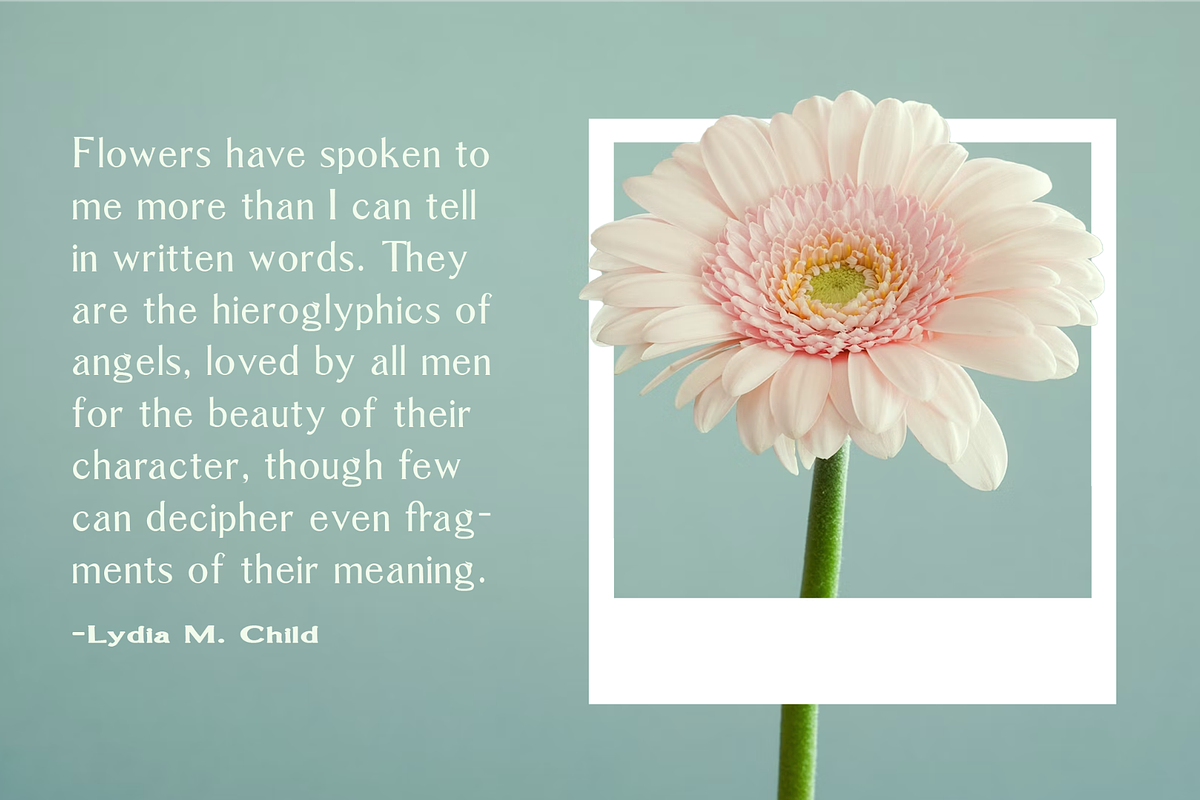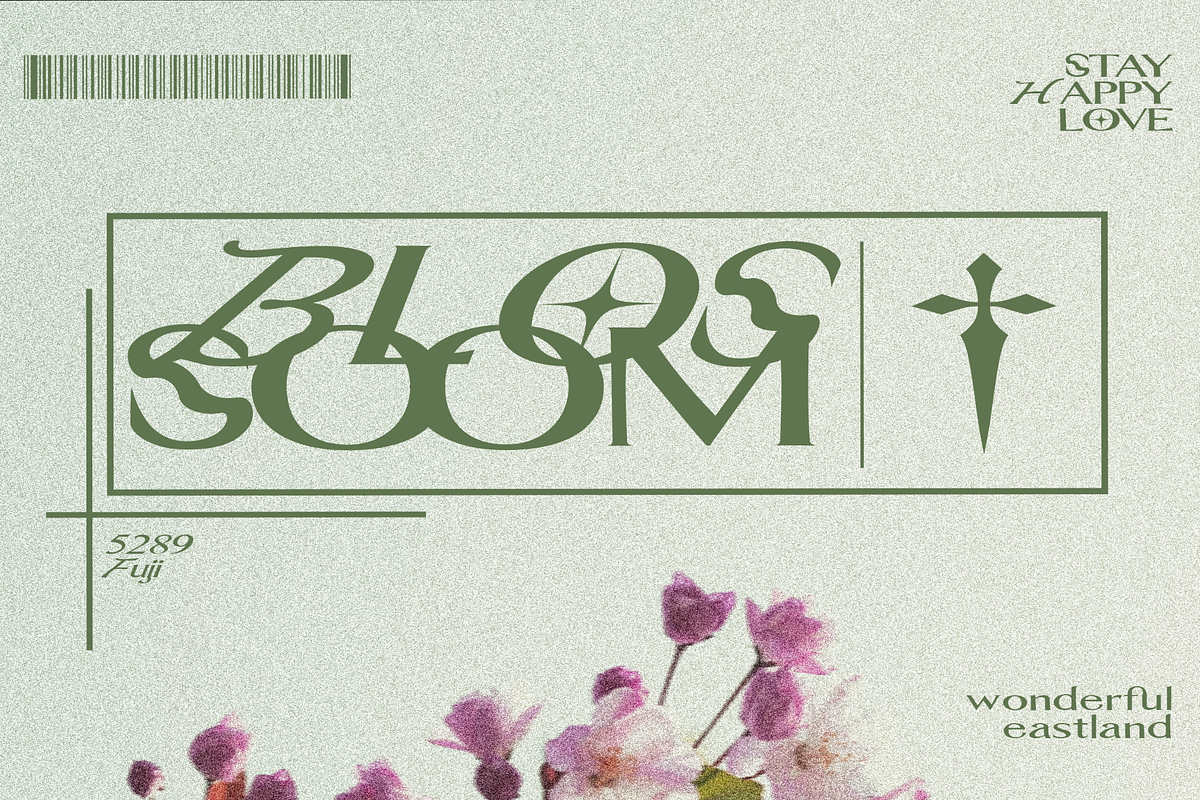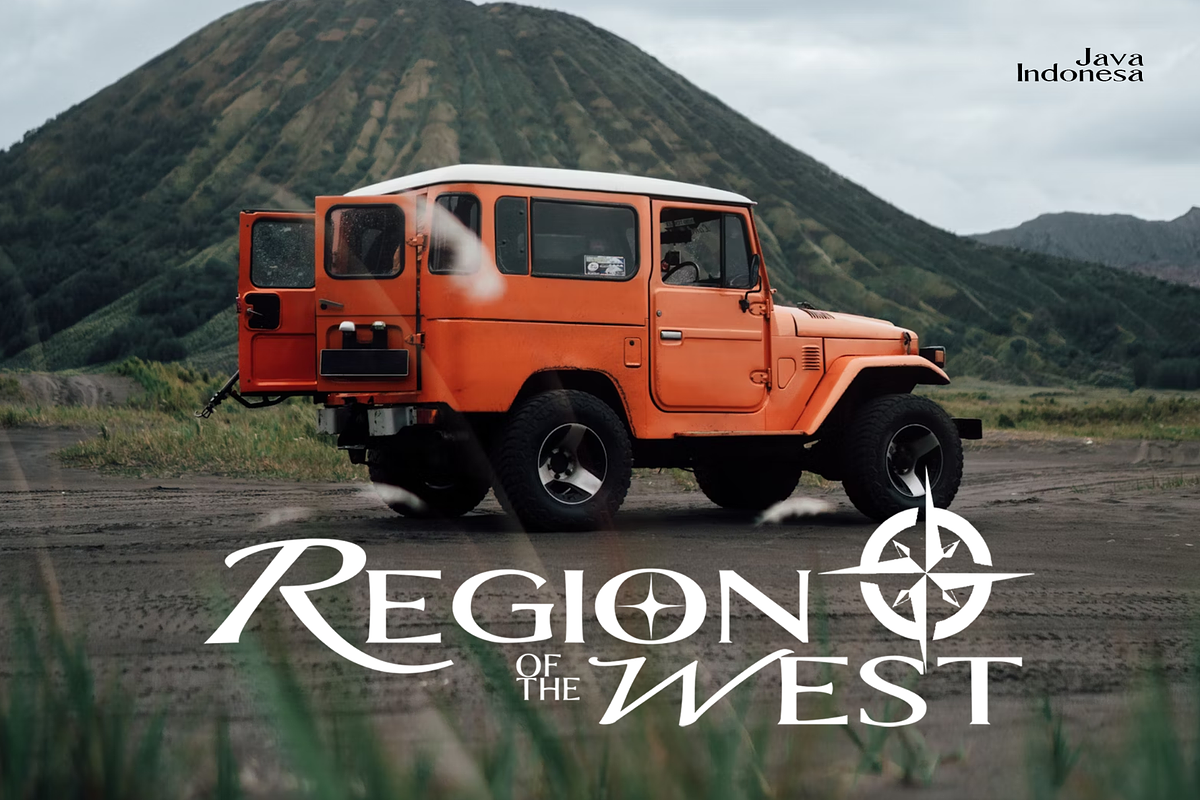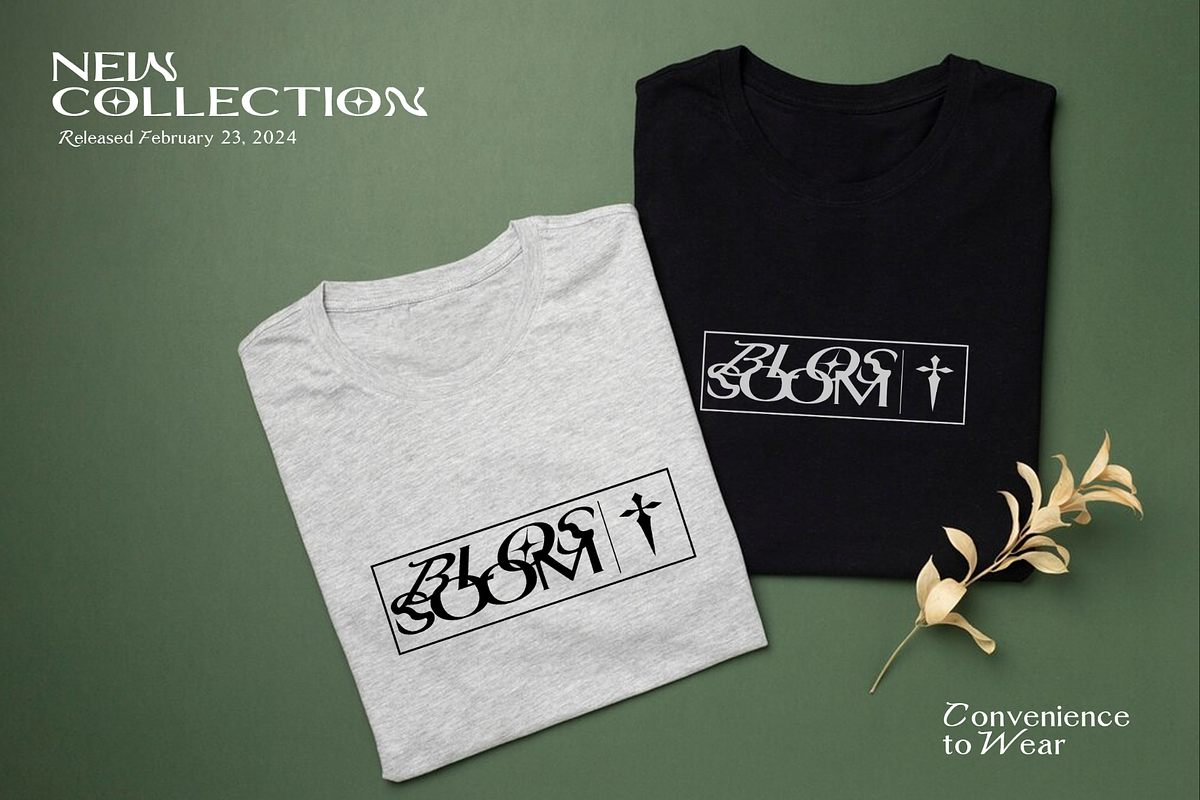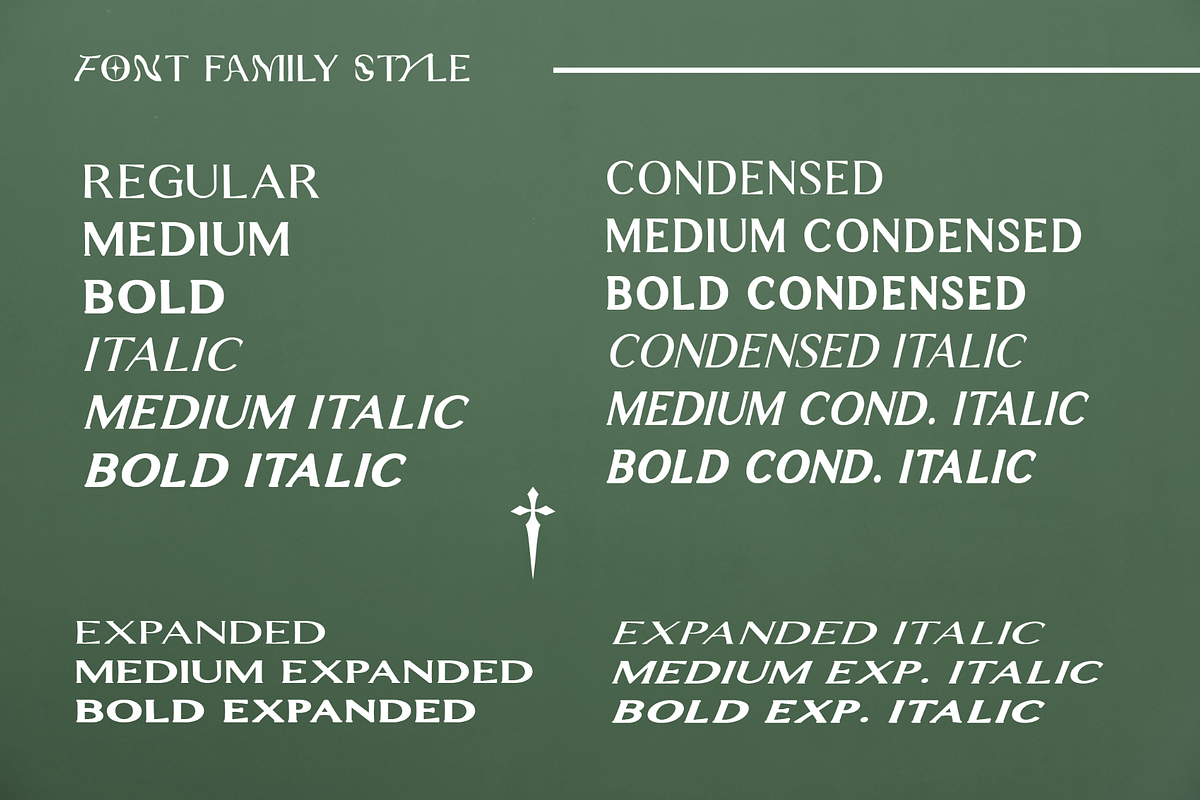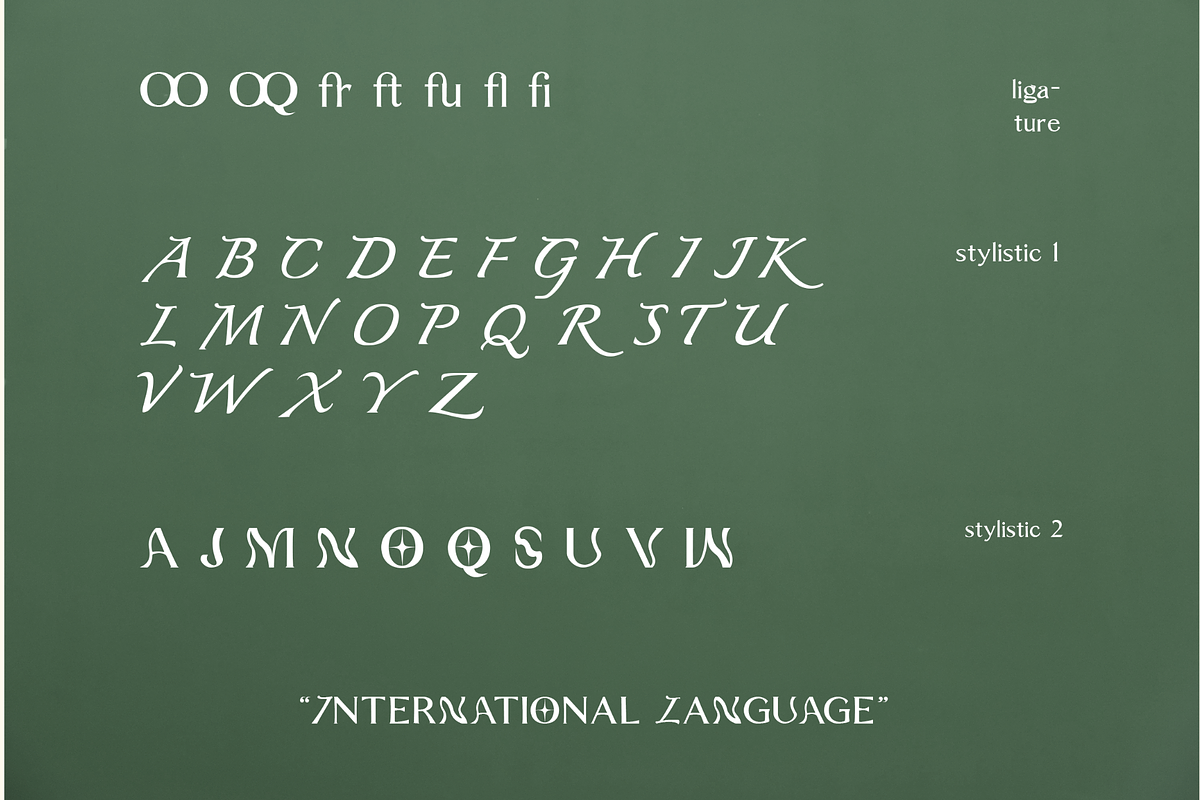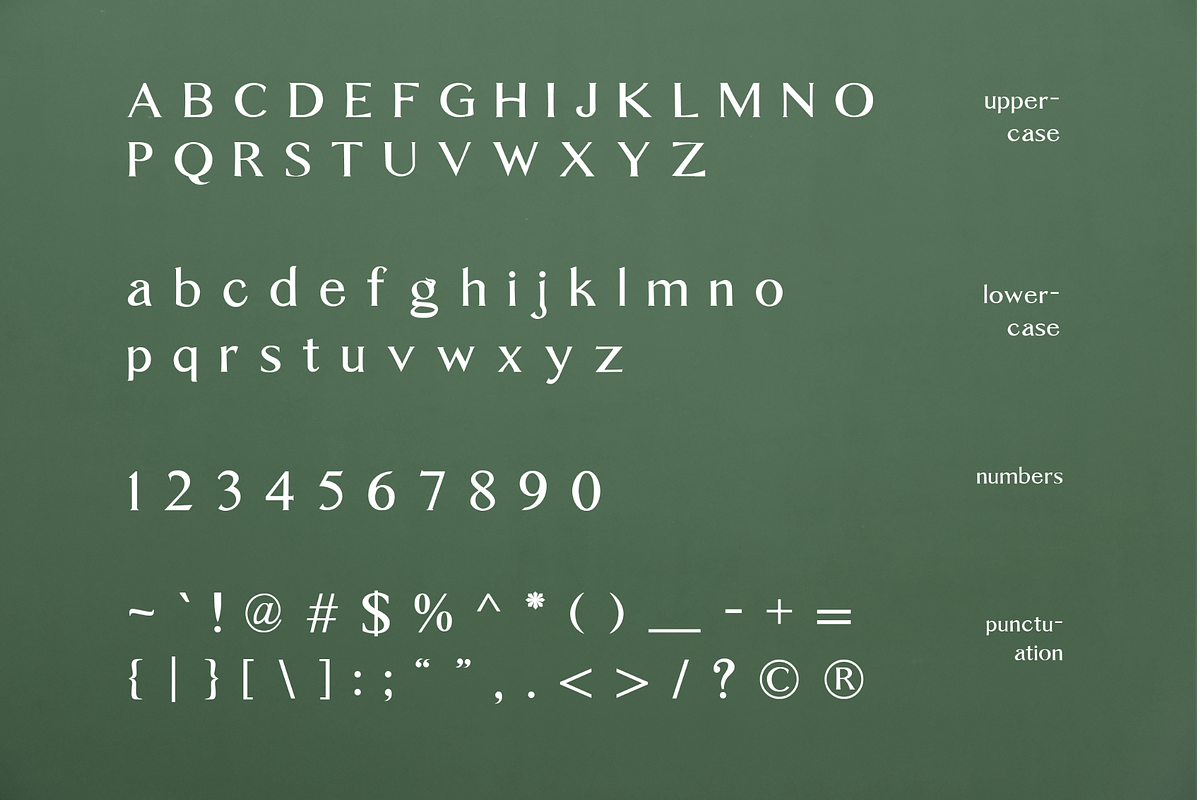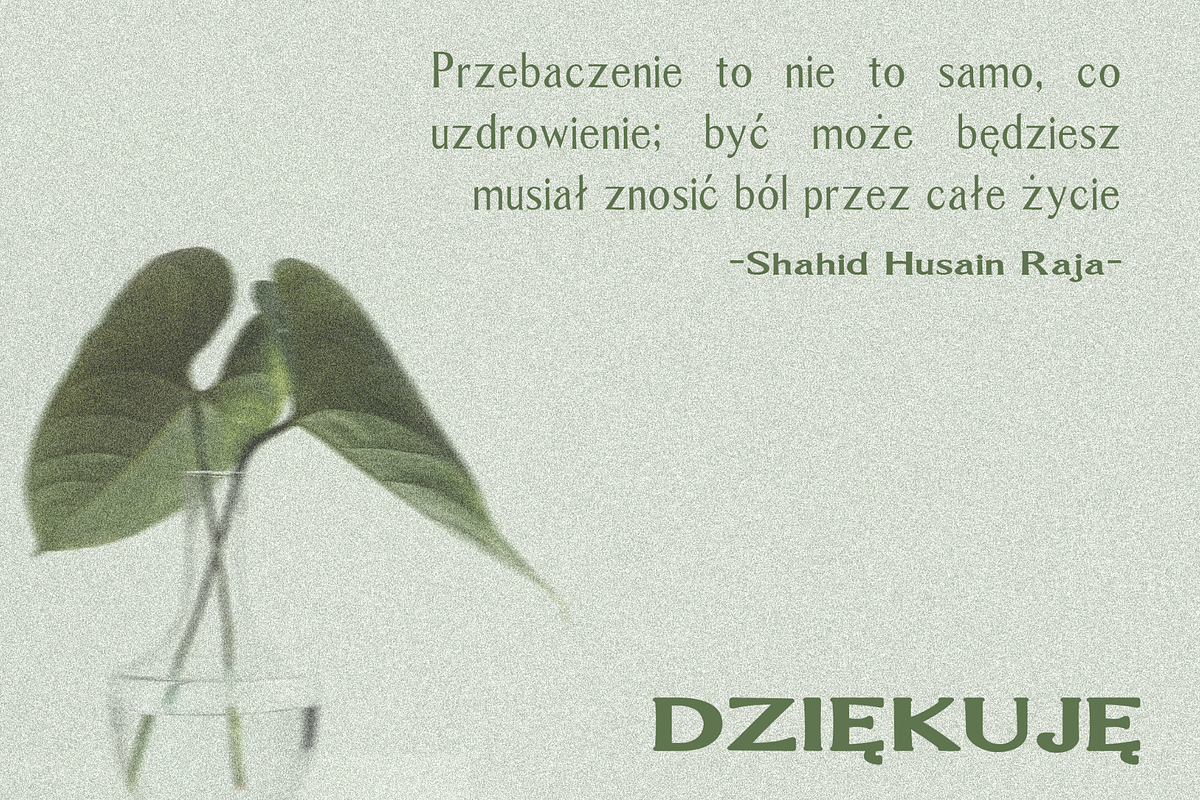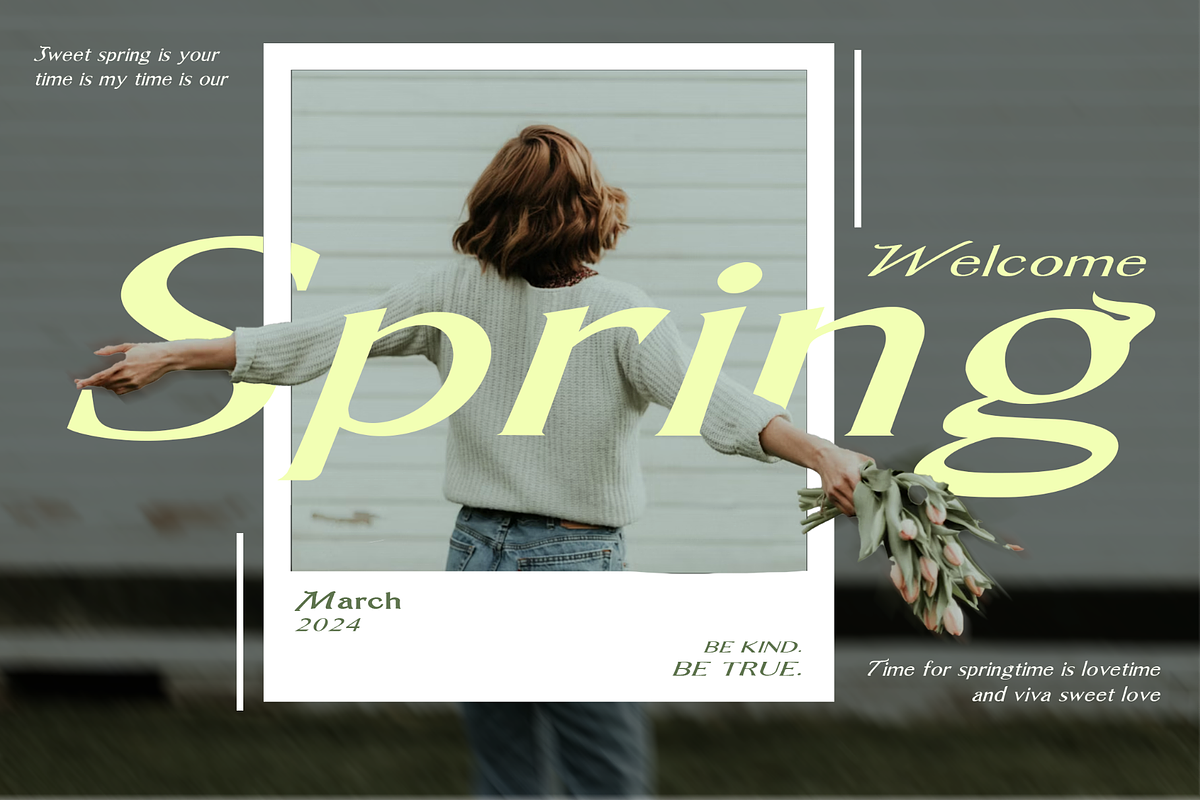
Gwenda Time - Serif Font
Discover Gwenda Times, an elegant, contemporary serif font with an impeccably crafted fusion of retro and modern aesthetics. This multilingual marvel is as versatile as they come, serving diverse design requirements from trendy streetwear to sophisticated boardroom scenarios. The clean contours and distinguishing characteristics of Gwenda Times forge it as a modern-classic pick, making it an excellent choice for typography enthusiasts and connoisseurs. Whether deployed for eye-catching exhibition displays, compelling poster designs, or trendsetting t-shirt graphics, Gwenda Times fluently straddles the spectrum of casual to professional styles. It's a versatile creative asset poised to enrich a range of artistic endeavours.